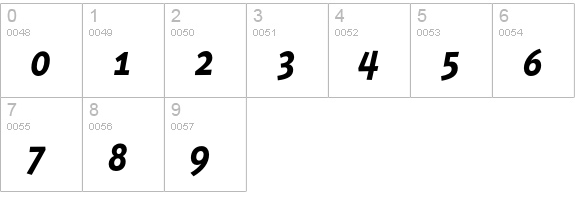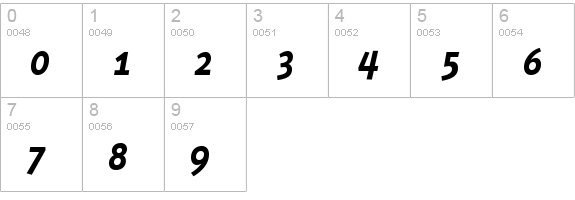
PedestriaMVB-BoldItalic is a sleek and modern font that exudes confidence and sophistication. Its bold and italicized design adds a touch of elegance to any project, making it perfect for attention-grabbing headlines, stylish logos, and impactful branding materials. This font is all about versatility. Whether you're designing a website, creating a poster, or crafting a magazine layout, PedestriaMVB-BoldItalic will effortlessly enhance your work with its distinctive and eye-catching appearance. Its slanted italics give it a dynamic and energetic feel, while the bold weight ensures that your text stands out with authority. One of the best things about PedestriaMVB-BoldItalic is that it is freely available to download at FontsMarket.com. This means that you can easily access and use this stunning font for both personal and commercial projects without any restrictions. Its accessibility allows designers, creatives, and enthusiasts to incorporate PedestriaMVB-BoldItalic into their work, creating visually stunning designs that leave a lasting impression. Whether you're a professional designer looking to elevate your projects or a typography enthusiast searching for a font that stands out from the crowd, PedestriaMVB-BoldItalic is the perfect choice. Its unique combination of boldness and elegance will make your text come alive, making a strong statement and capturing attention. So why wait? Download PedestriaMVB-BoldItalic today, and experience the freedom of creativity that this font brings. Let it inspire you to create awe-inspiring designs that leave a lasting impact. Embrace the power of PedestriaMVB-BoldItalic and watch your projects come to life with its captivating and stylish presence.